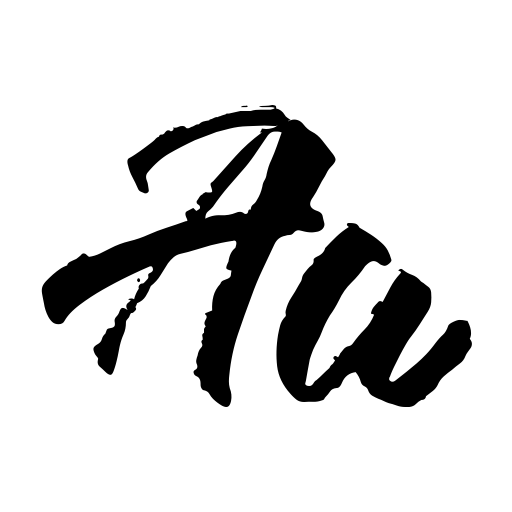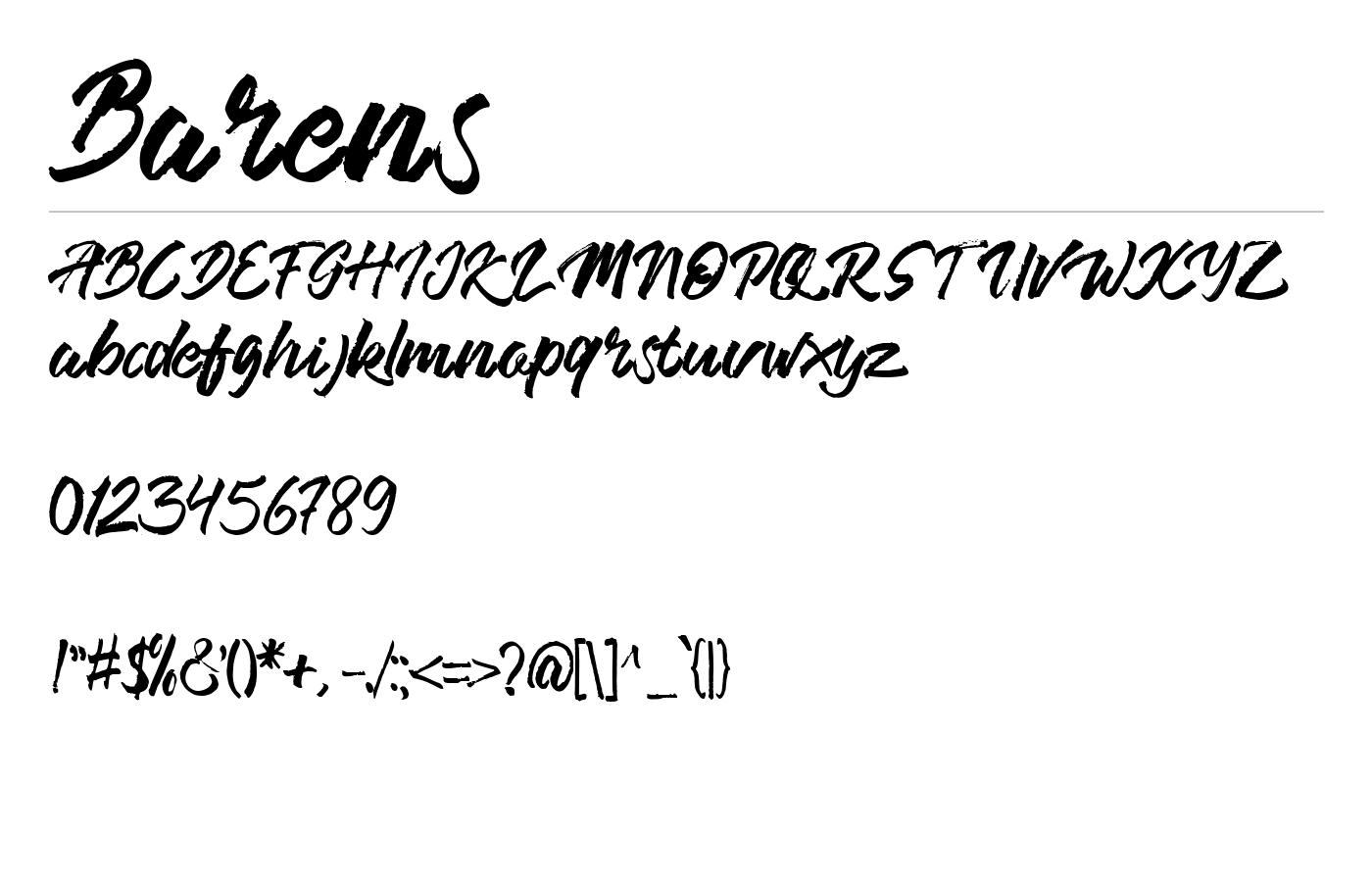
Barens is a bold, brush-script font that combines a casual and artistic flair with lively, textured strokes, giving it an energetic and handmade feel. Its slightly condensed letterforms and dynamic contrast make it ideal for creative projects, branding, and headlines where a personal, expressive touch is desired. This font works especially well for logos, posters, and packaging that aim to convey authenticity and vibrancy.
Barens Font
About Barens Font
| Font family | Barens Font |
| Designer | Faisal ND |